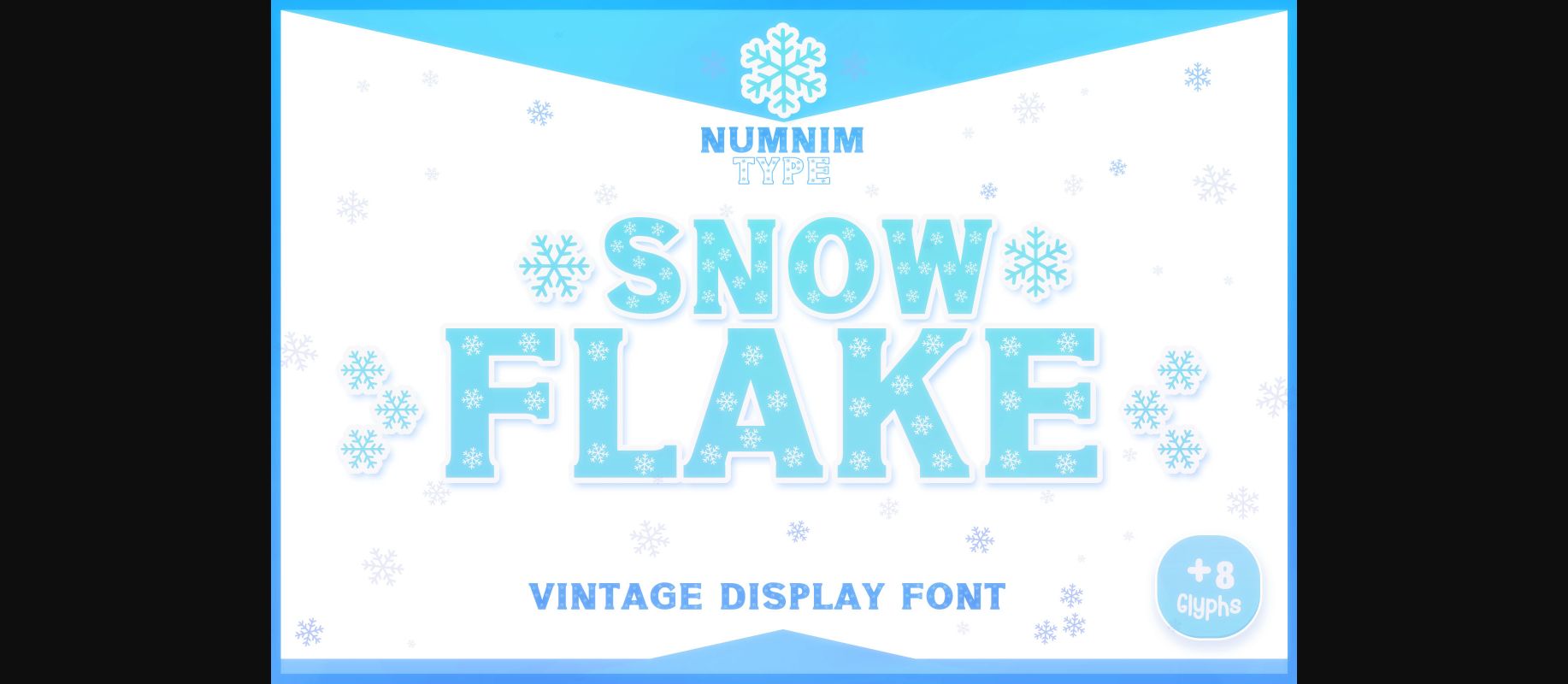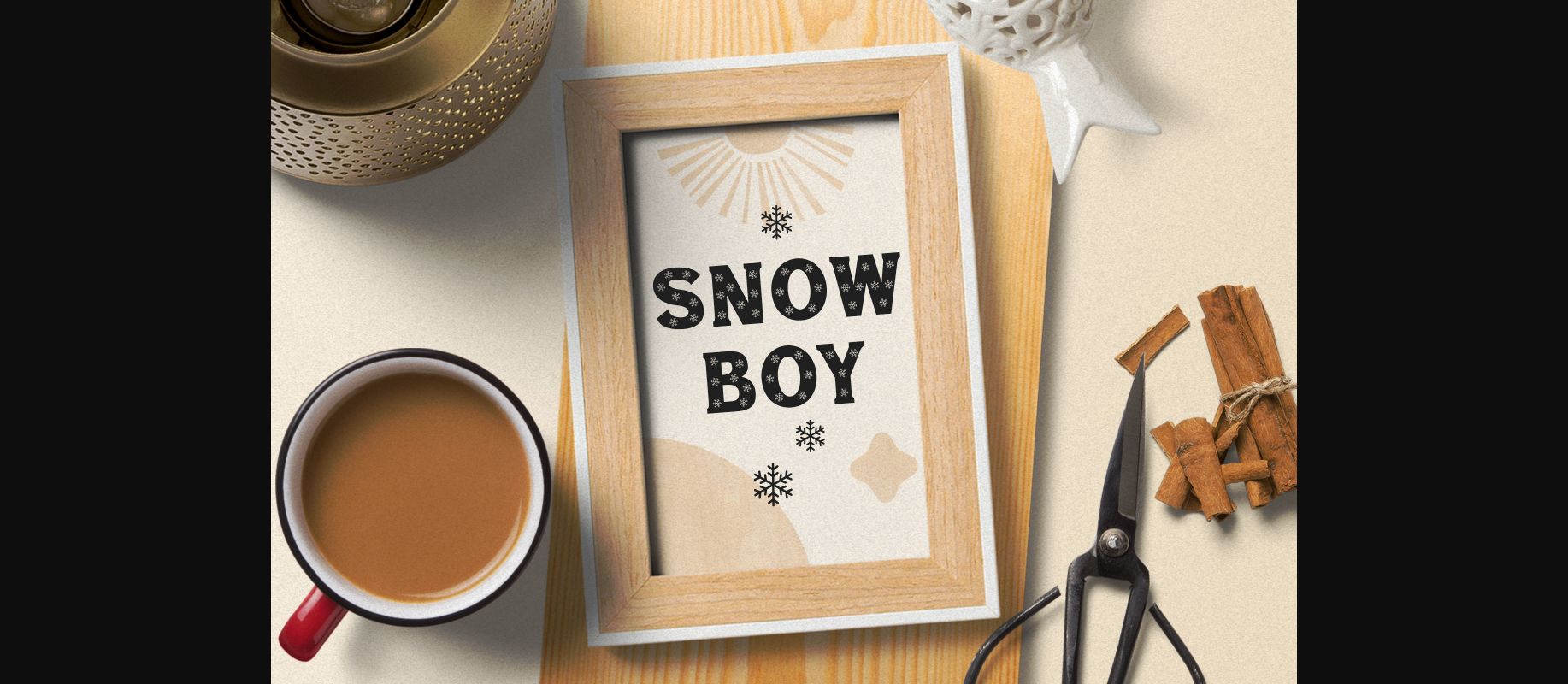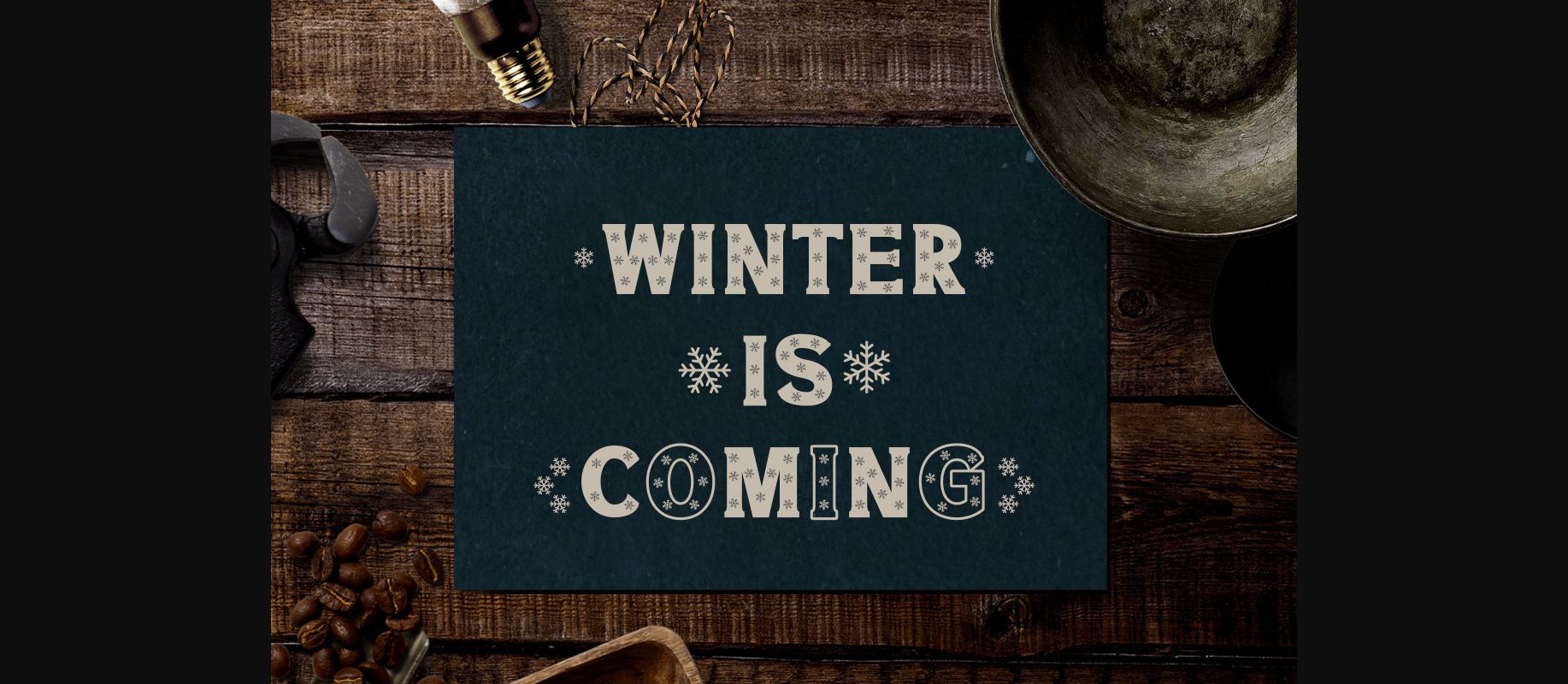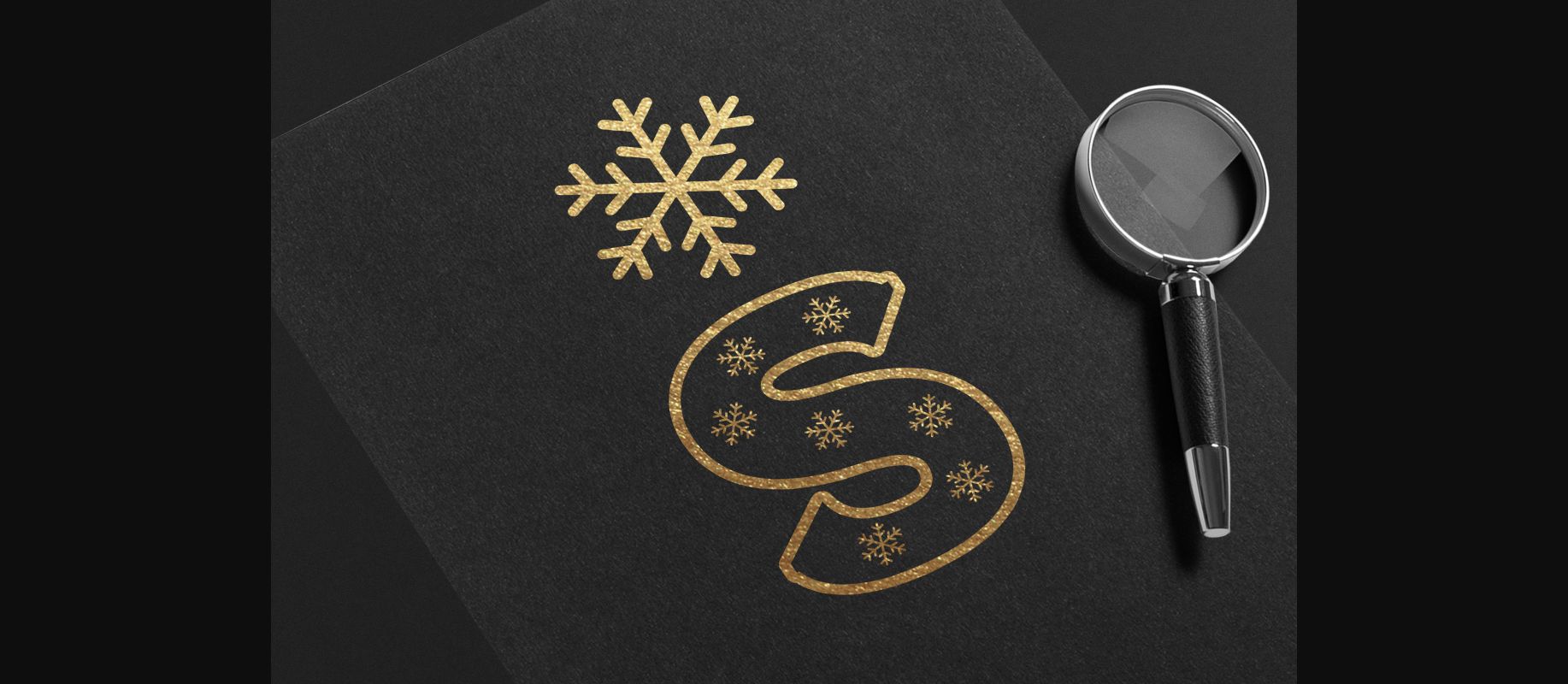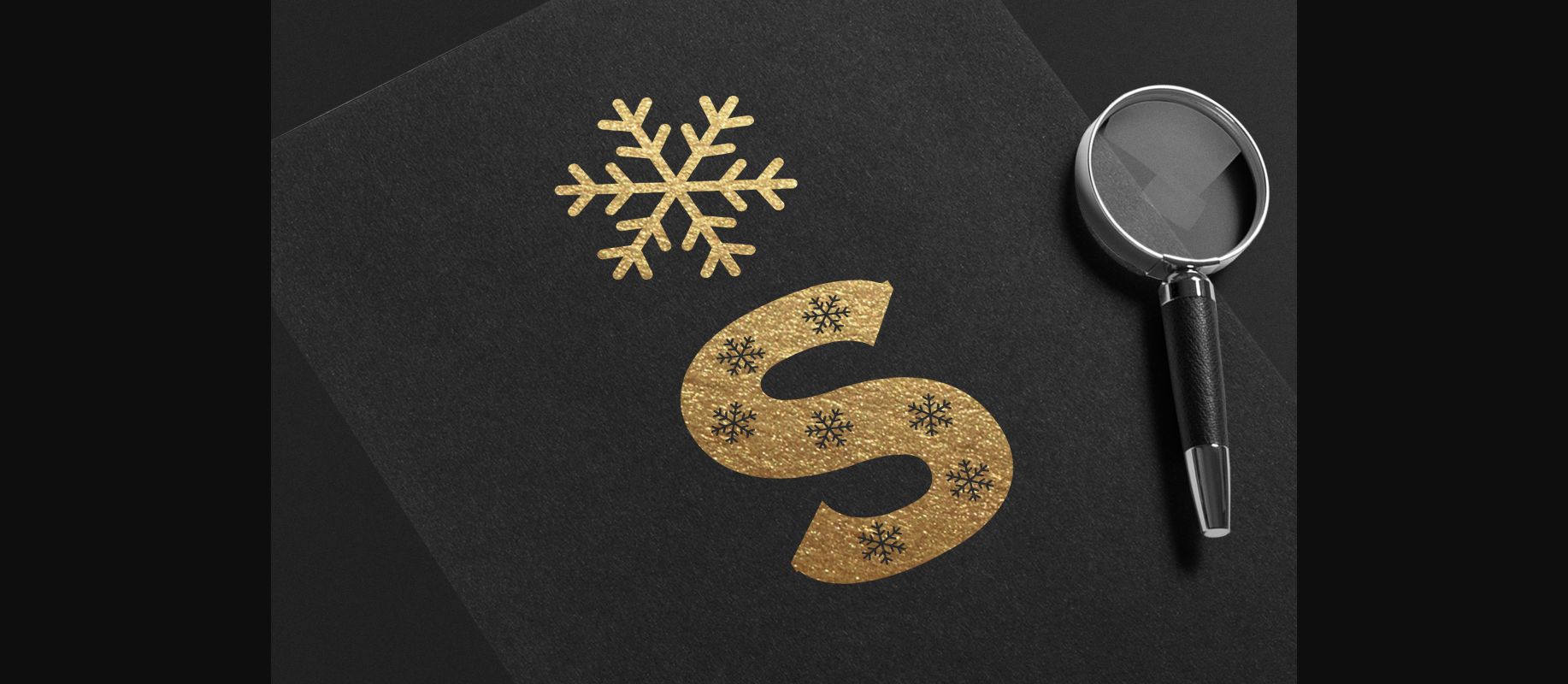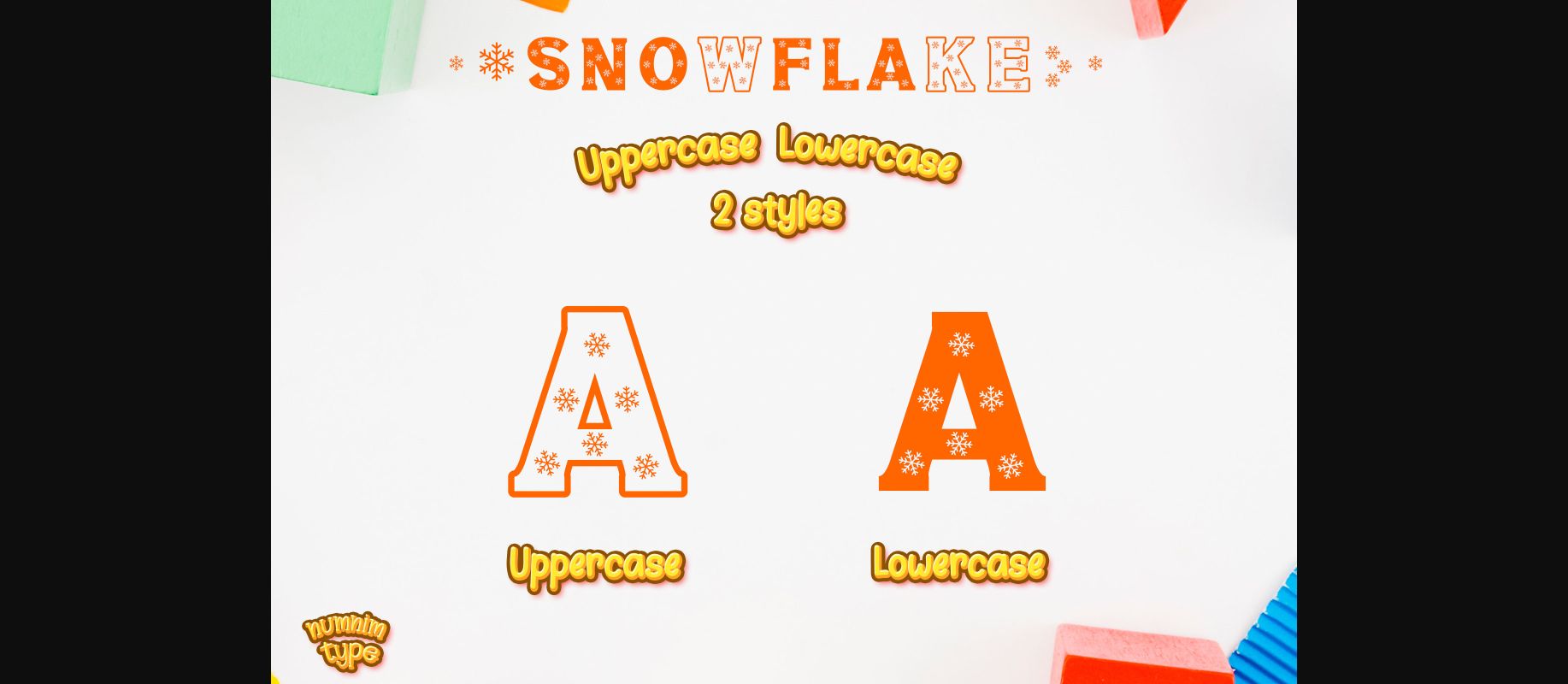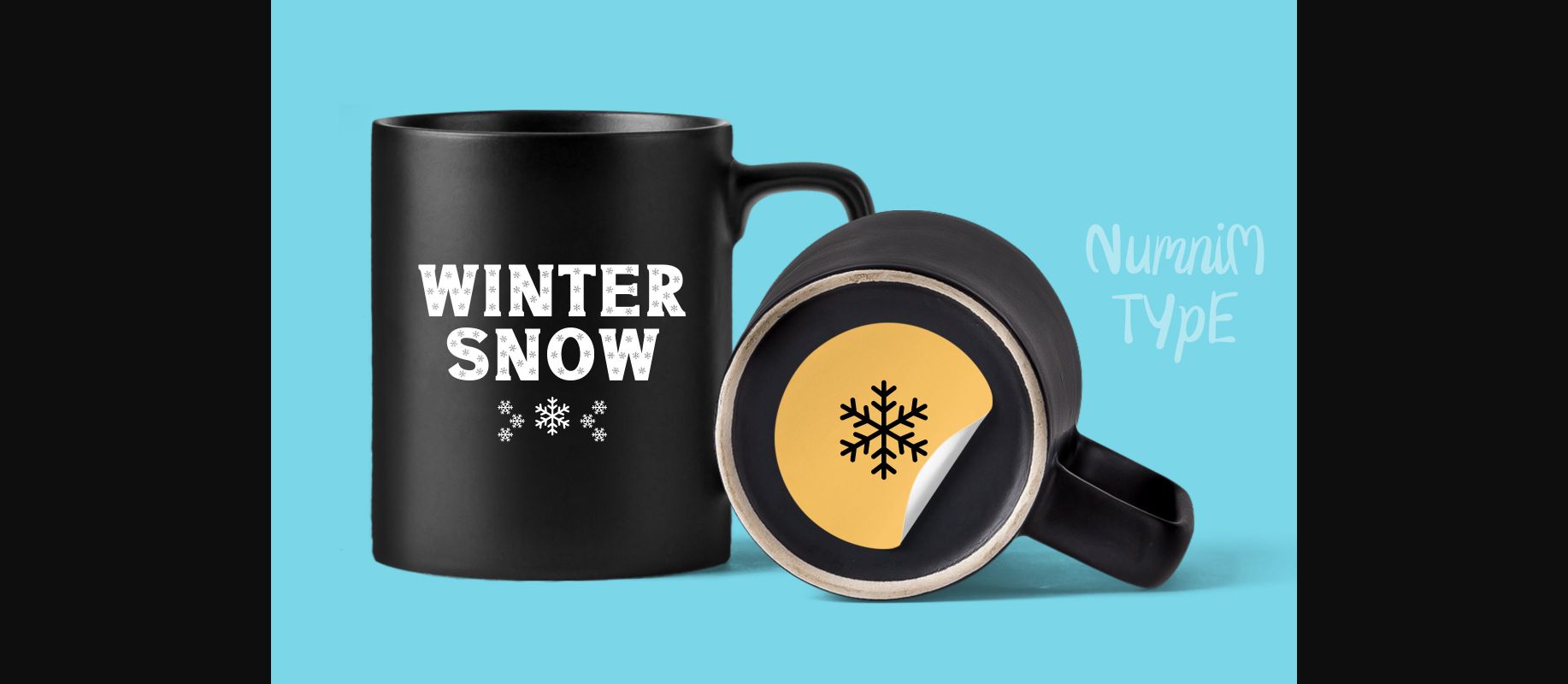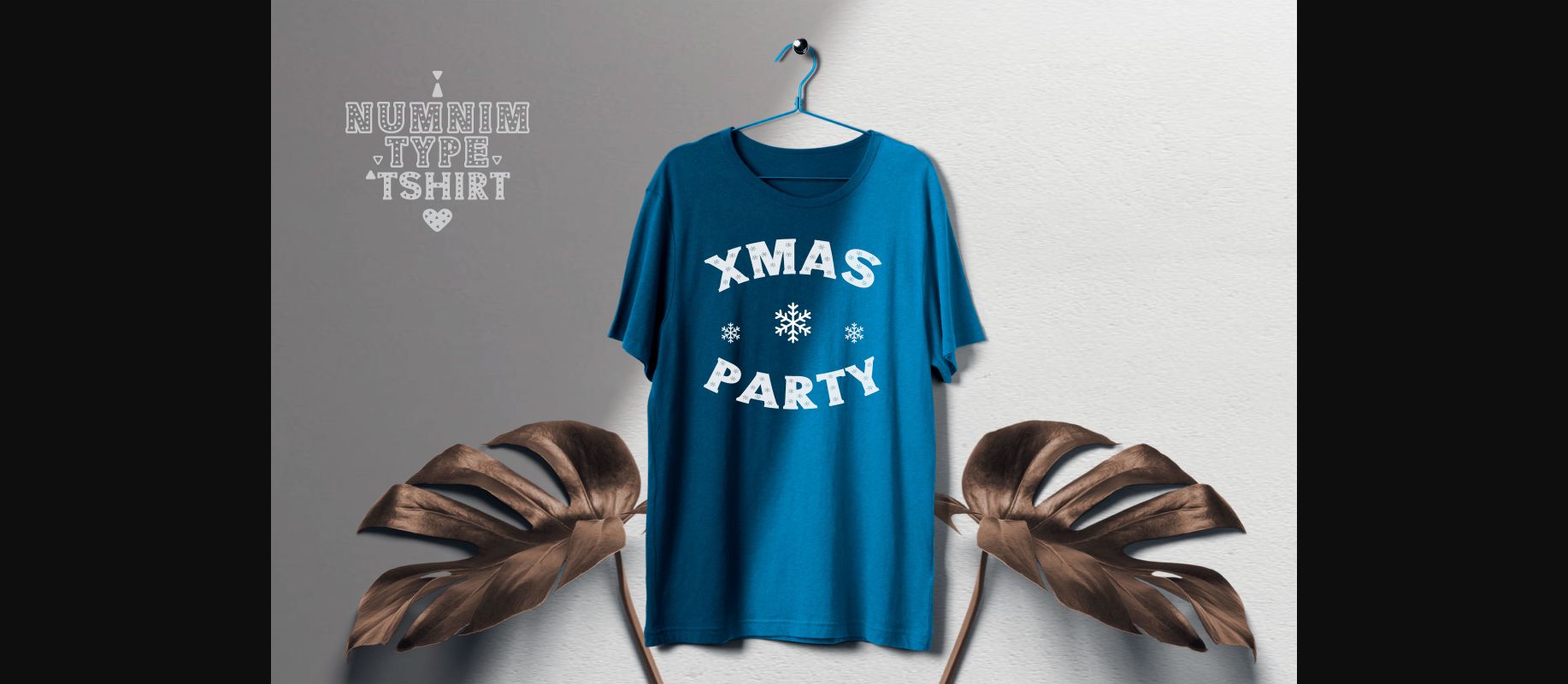
SnowFlake is a cool and unique decorative font featuring characters decorated with snowflakes. Whether you’re using it for crafting, digital designing, presentations or greeting cards making, it’s perfect!